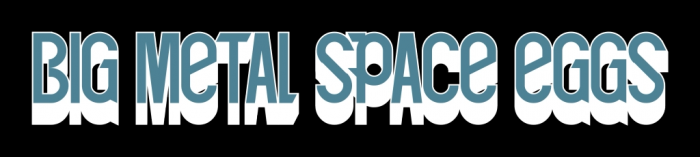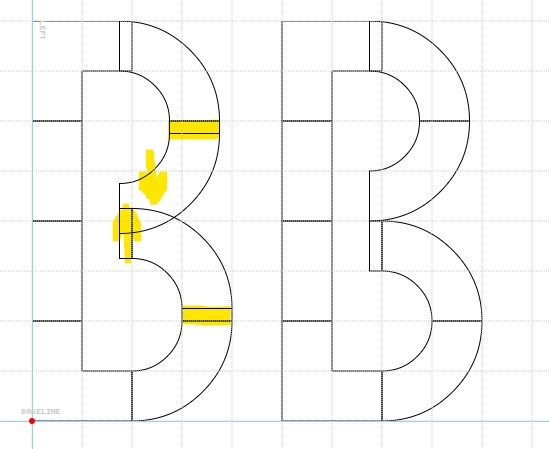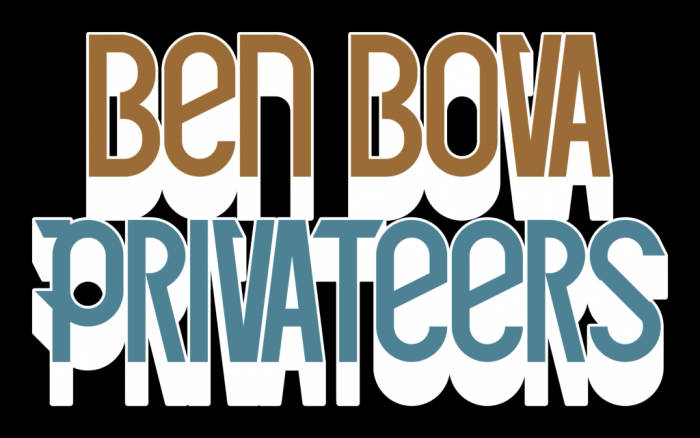
Cora
Huh?
What?
...Why?
A Secret Fruptile...(IDK :P)
Lol, yeah. It seems that the fonts I work the hardest on are the ones that nobody knows about
This is the original title
And this is my version.
Its nice I would say, even without the reference. What disturbs me a little, is the shape of B central connection. I would have small cheat suggestion. Nudge the central arcs more together and fill horizontal gaps with the same thin brick you used vertically. Maybe as another alternative...
'Tis done.
And have you considered adding numbers?
I'll give it a try. Probably won't kern them all right away though, since that takes a while.
Boom. Full set of numbers!
Good job! Really like the retrofuturistic art-deco vibes it gives off.
But..you can do the Original Text to Improve Image?
You mean the original title?
'Cause I can do that
Nice numbers, btw.